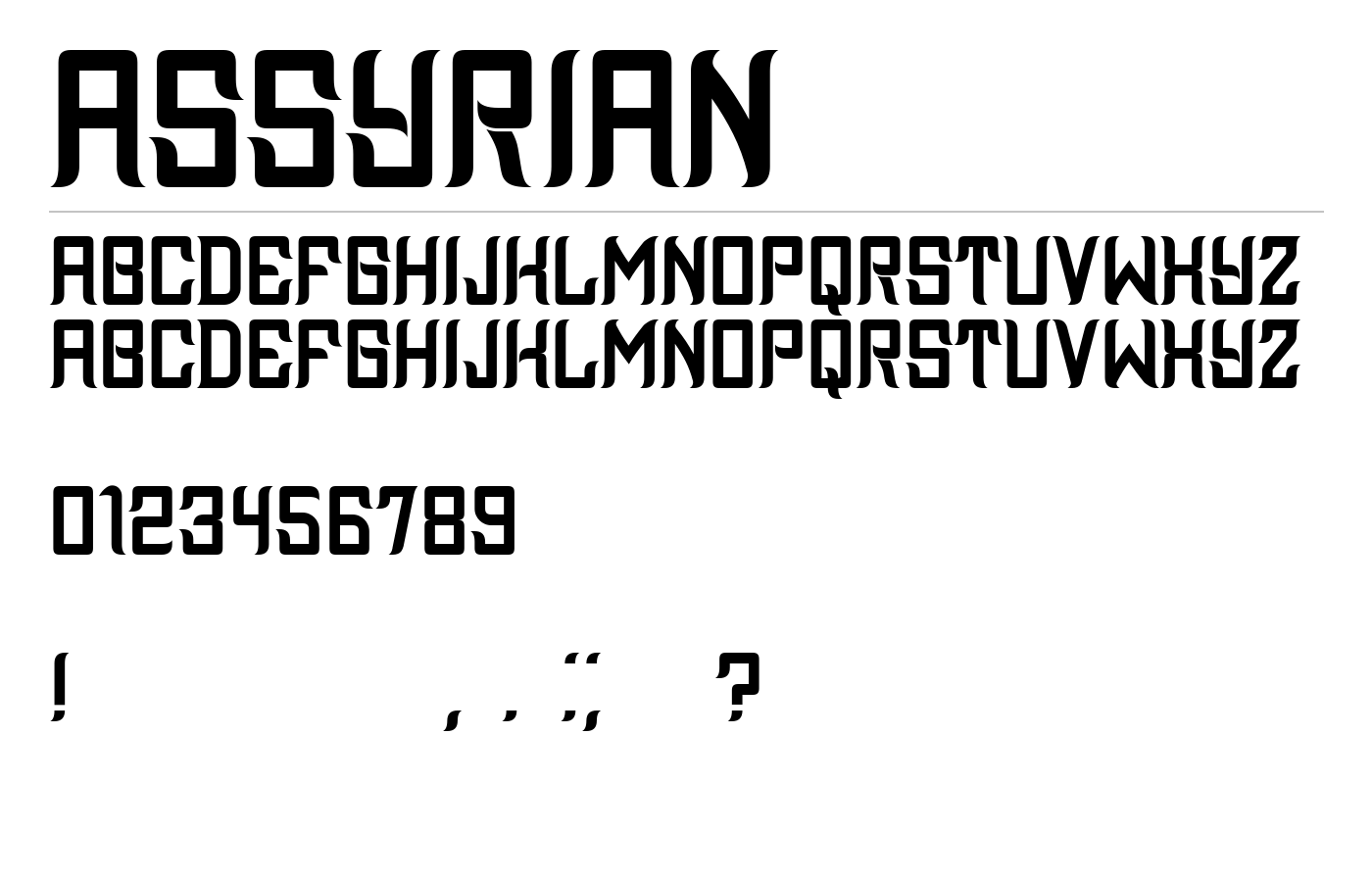
Assyrian Font is a bold, condensed sans serif typeface with a distinct geometric and futuristic style, featuring sharp angles and unique cut-out details that give it a modern yet slightly vintage sci-fi vibe. Its strong, structured letterforms with consistent stroke weight and all-caps design make it ideal for striking headlines, logos, and branding projects seeking a bold and edgy personality. This font works best in display settings where its unique style can stand out and make a memorable impression.
Assyrian Font
About Assyrian Font